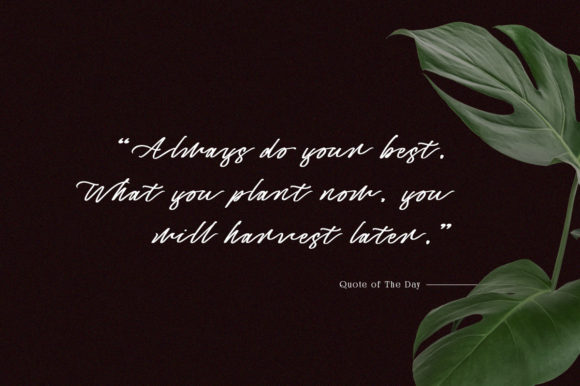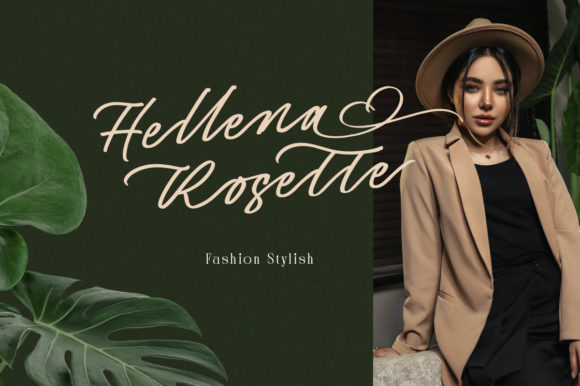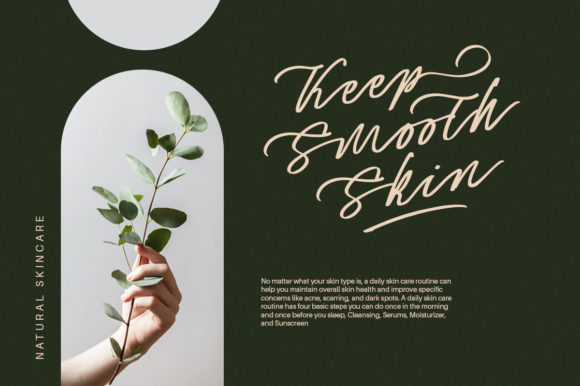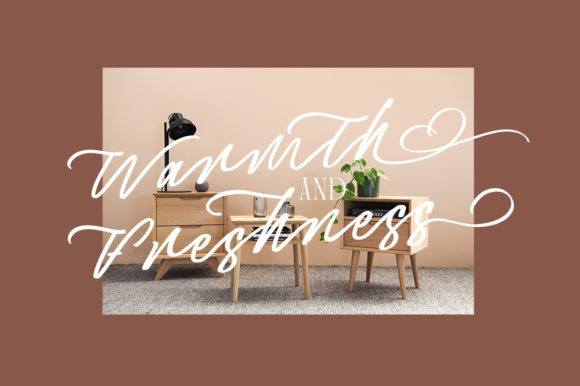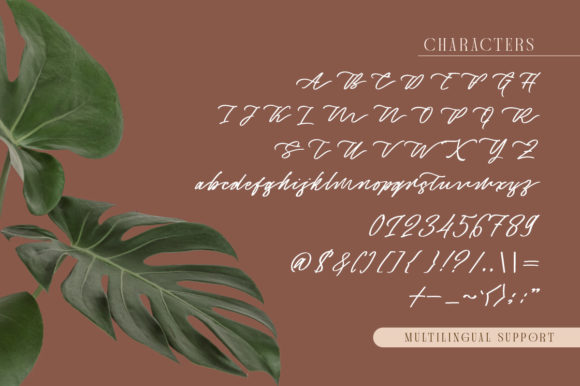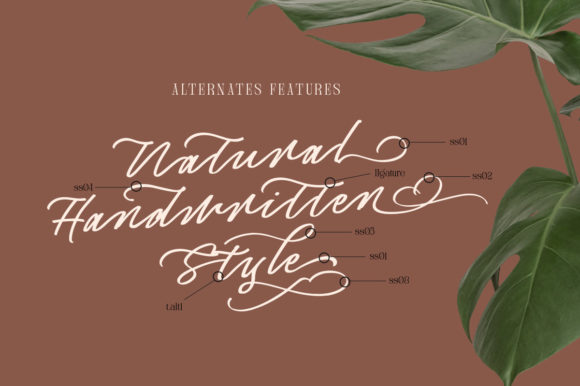
Captivate Script Font: Elevate Your Designs with Elegance and Sophistication
Are you looking for a font that can add a touch of luxury to your design projects? Look no further than Captivate Script Font. This delicate, light, and beautiful script font is designed to bring a spark of elegance and sophistication to any design. In this article, we’ll explore the features and benefits of Captivate Script Font and how it can help you create spectacular designs.
What is Captivate Script Font?
Captivate Script Font is a stunning script font that is perfect for designers and crafters who want to add a touch of luxury to their work. Its delicate and light strokes make it an ideal choice for creating elegant and sophisticated designs. The font’s beautiful and intricate lettering will make your designs stand out from the crowd and leave a lasting impression on your audience.
Features of Captivate Script Font
Captivate Script Font has several features that make it a versatile and desirable font for designers. Some of its key features include:
- Delicate and Light Strokes: The font’s delicate and light strokes make it perfect for creating elegant and sophisticated designs.
- Beautiful and Intricate Lettering: The font’s intricate lettering is designed to add a touch of luxury to your designs.
- Versatile Style: Captivate Script Font has an incredibly versatile style that makes it suitable for a wide range of design projects.
Benefits of Using Captivate Script Font
Using Captivate Script Font can bring several benefits to your design projects. Some of the benefits include:
- Adds a Touch of Luxury: The font’s elegant and sophisticated design adds a touch of luxury to your designs.
- Creates Spectacular Designs: The font’s beautiful and intricate lettering will make your designs stand out from the crowd and leave a lasting impression on your audience.
- Increases Versatility: Captivate Script Font can be used for a wide range of design projects, from branding and packaging to wedding invitations and social media graphics.
- Easy to Read: The font is easy to read, making it perfect for body text and headlines.
Design Ideas Using Captivate Script Font
Captivate Script Font can be used for a wide range of design projects. Here are some design ideas to get you started:
- Wedding Invitations: Use Captivate Script Font to create beautiful and elegant wedding invitations.
- Branding and Packaging: Use the font to create luxurious branding and packaging designs.
- Social Media Graphics: Use the font to create eye-catching social media graphics.
- Logos and Icons: Use the font to create elegant and sophisticated logos and icons.
Captivate Script Font is a beautiful and elegant script font that can add a touch of luxury to your design projects. Its delicate and light strokes, beautiful and intricate lettering, and versatile style make it perfect for creating spectacular designs. Whether you’re a designer or crafter, Captivate Script Font is a great addition to your font collection.